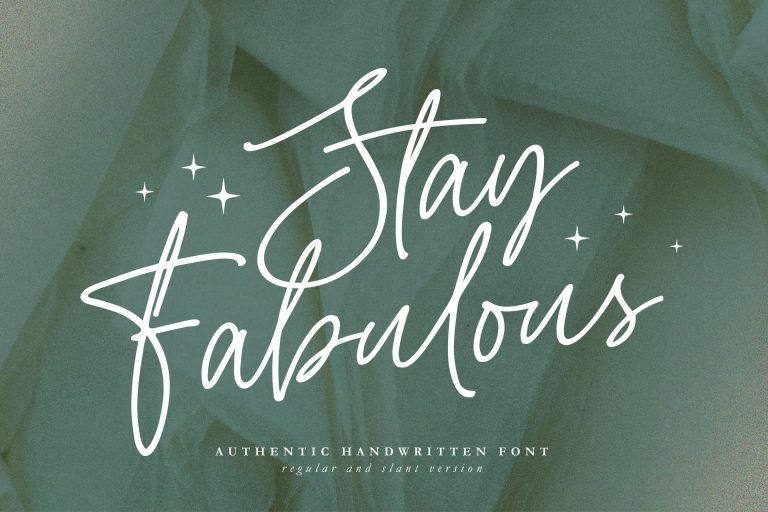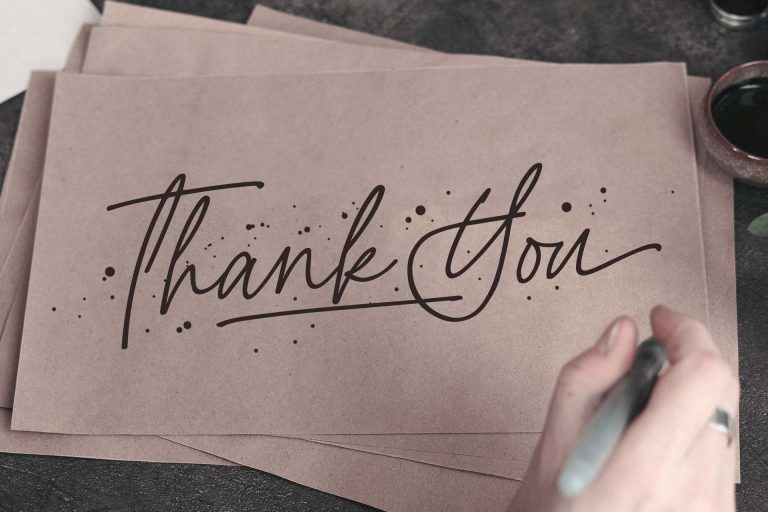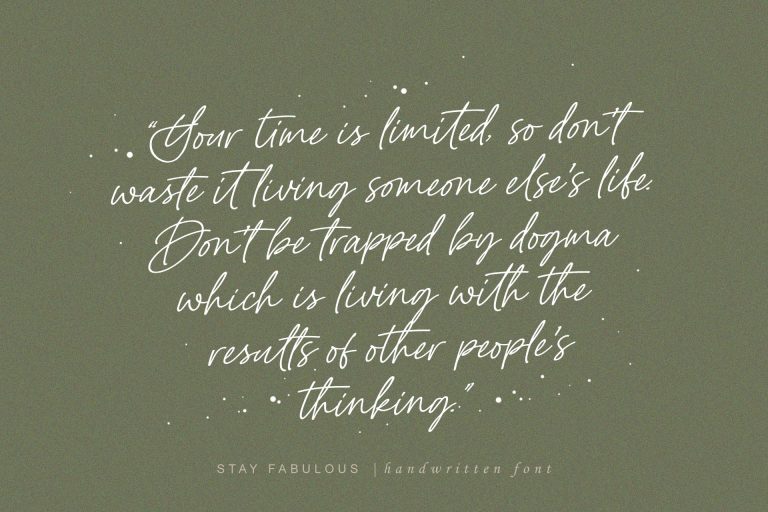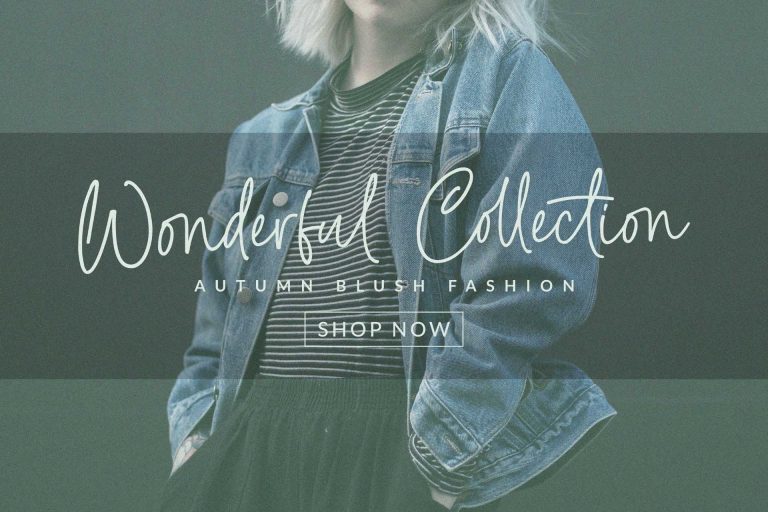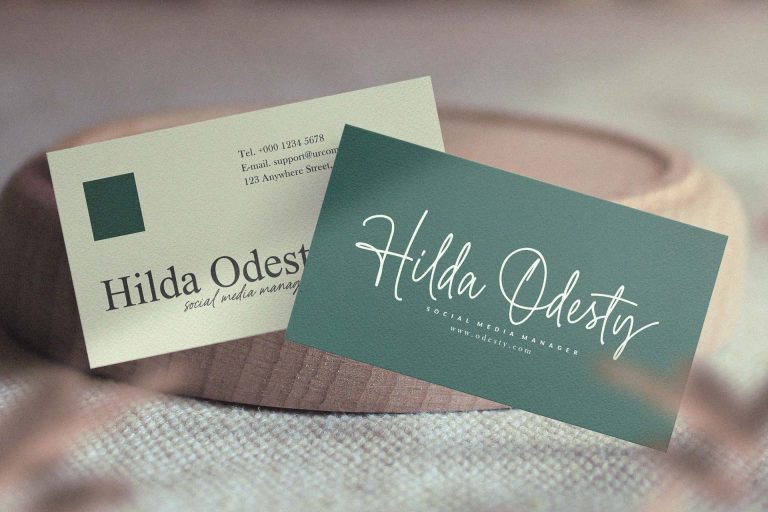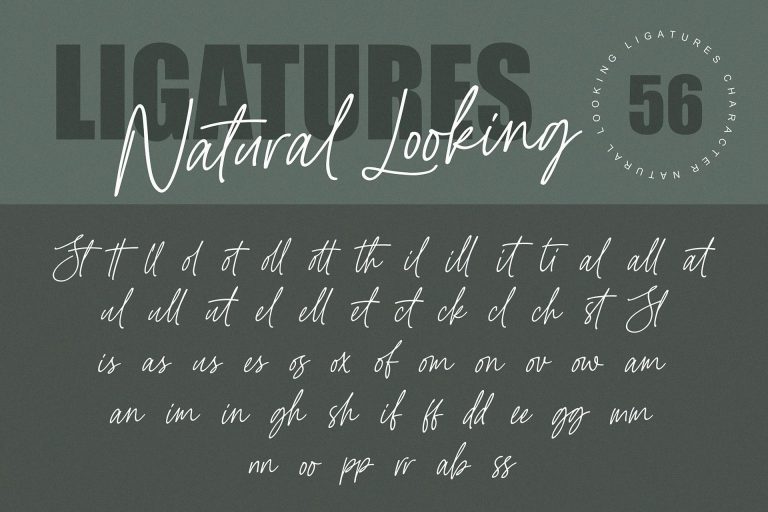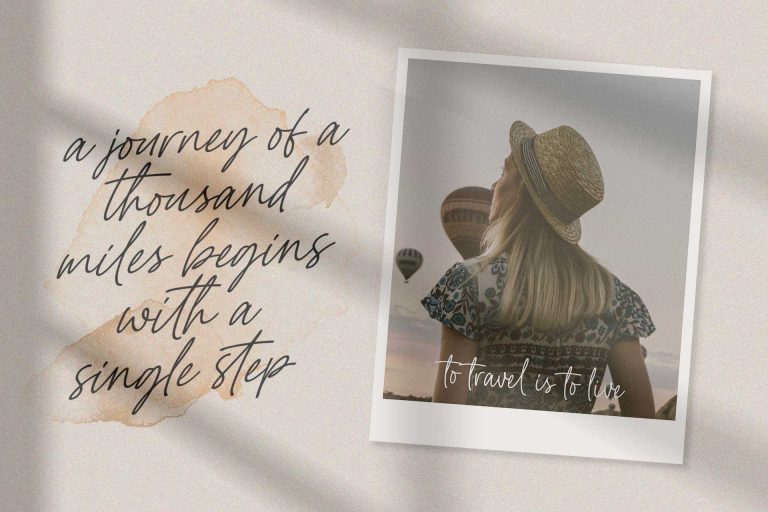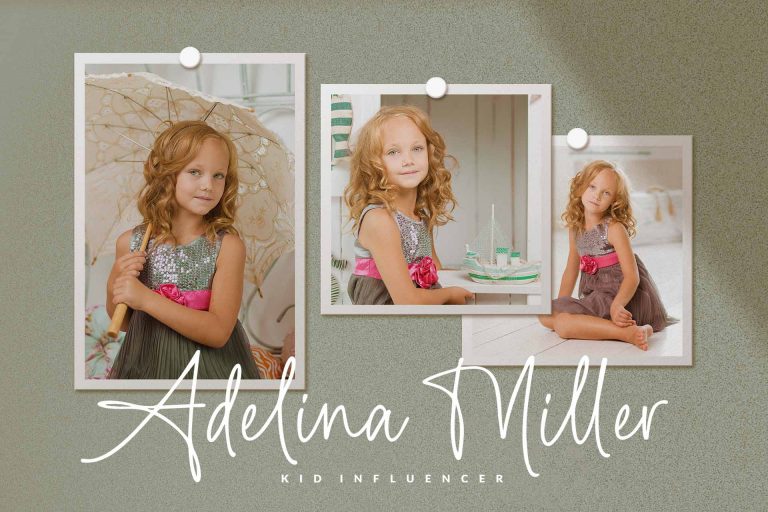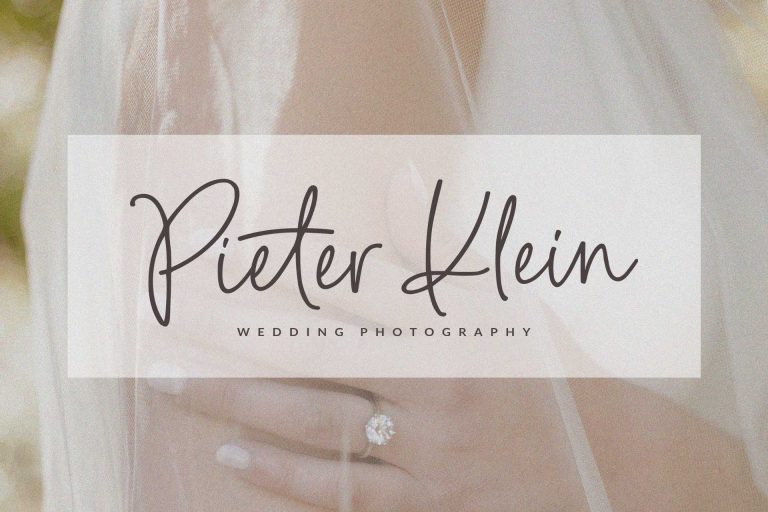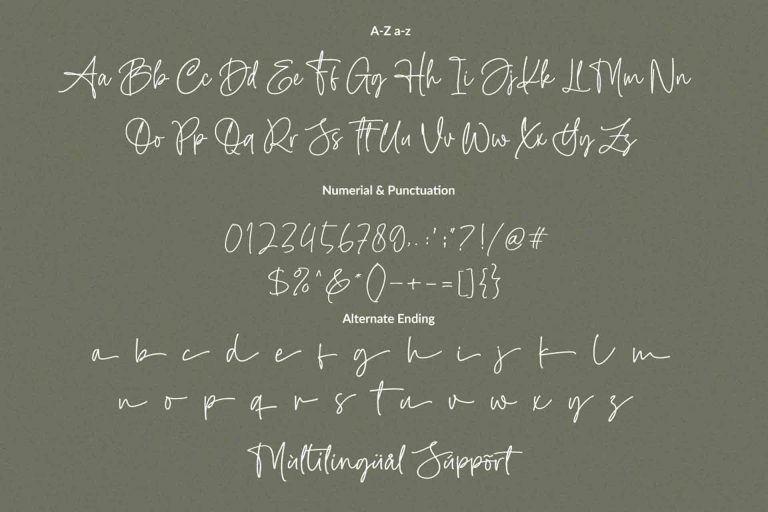
Stay Fabulous Regular
Stay Fabulous Italic
Stay Fabulous is an Authentic Handwritten font with a touch of handwriting style. This font is perfect for creating signature
logos and watermarks for photography studio or wedding invitation.
Stay Fabulous includes full set of beautifull hand lettered uppercase and lowercase letters, numerals,
a large range of punctuation and many beautiful ligatures.
it has an extensive lingual support, covering European and Asian Latin scripts.
The font contains all characters you’ll ever need, including all punctuation and numbers.
Regular and Italic Version